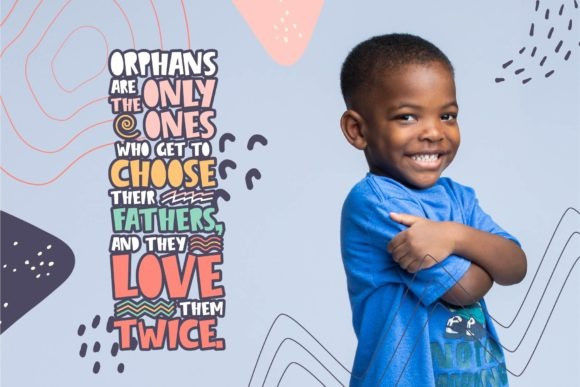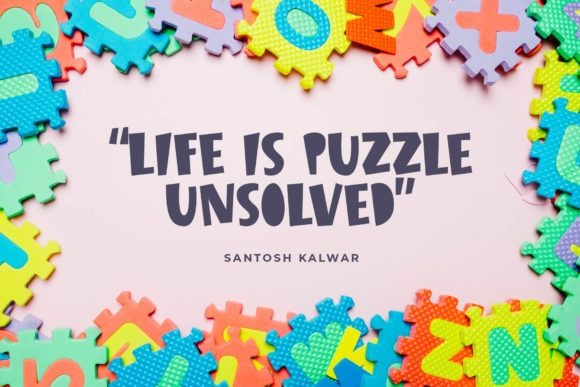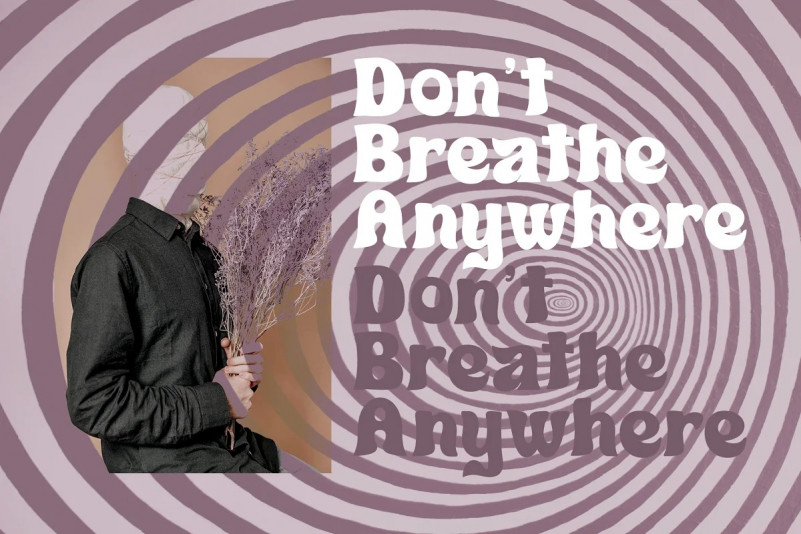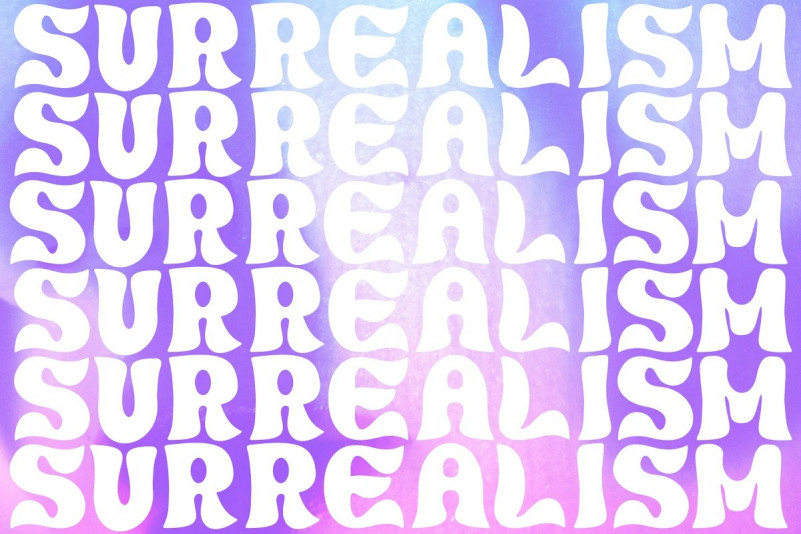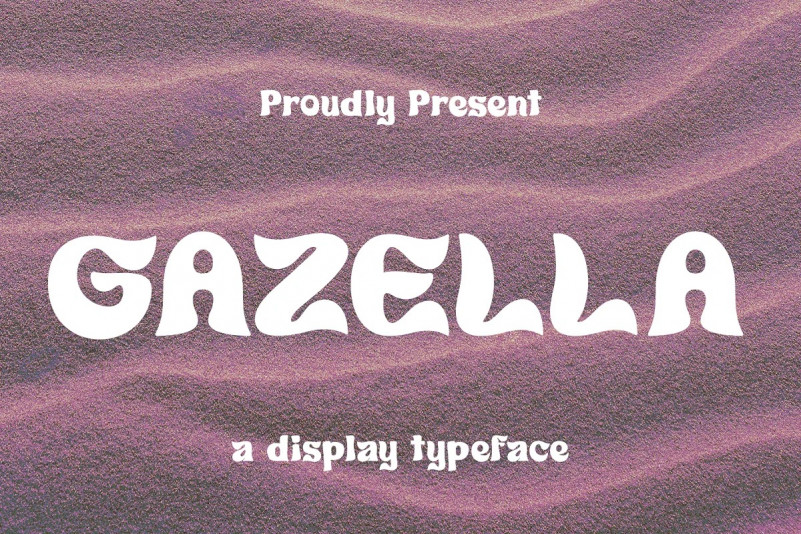
Gazella Display Font
GAZELLA Displays Fonts. This font has a unique and bold typeface, making it suitable for unique design themes. The unique binding of the serifs makes this typeface cool and stands out from the usual serif fonts, perfect for headlines, logos, posters, packaging, T-shirts, coffee shops, restaurants, magazine headers, signs or gift/post cards, cafes and weddings or any kind of advertising purposes.
GAZELLA comes with uppercase, lowercase, Numbers, Punctuation, Ligatures and also Multi Language Support.